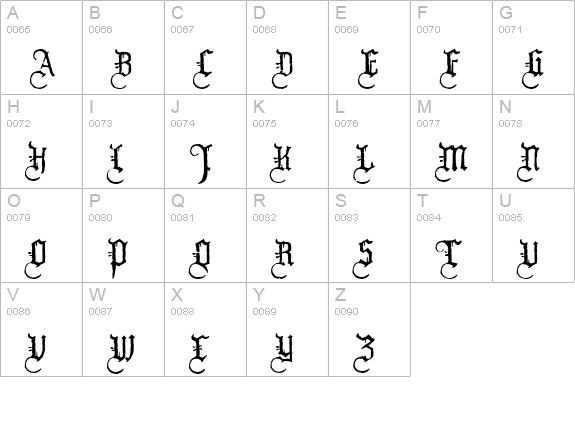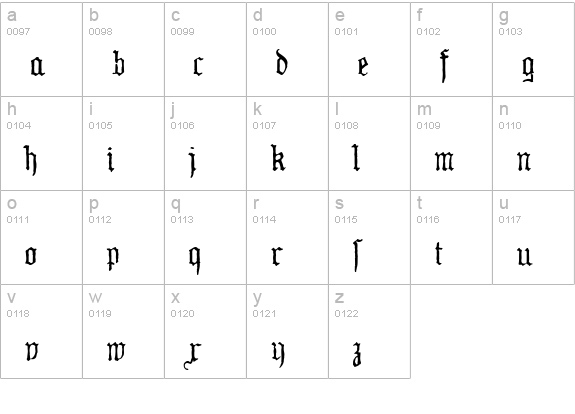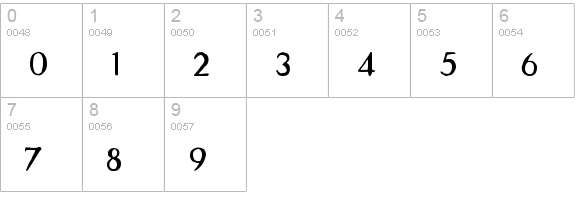
WW2Blackletter HPLHS Font Details
Introducing WW2Blackletter HPLHS font, a captivating typeface that brings the essence of World War II to life with its bold and striking design. This unique font pays homage to the iconic blackletter style, commonly used during the war era, and carries a sense of historical nostalgia. WW2Blackletter HPLHS font is meticulously crafted to capture the intricate details and ornate flourishes reminiscent of traditional calligraphy. Its sharp and angular letterforms exude a sense of strength and power, reflecting the spirit of resilience and determination that defined the wartime period. This font is not only visually appealing but also incredibly versatile, making it suitable for a wide range of design projects. Whether you're creating vintage-inspired posters, historical documentaries, or even personal projects that aim to capture the essence of the past, WW2Blackletter HPLHS font will effortlessly elevate your work to new heights. As a bonus, this remarkable font is available for free download at FontsMarket.com. This means that designers and enthusiasts alike can easily access and utilize the WW2Blackletter HPLHS font in their projects, without any financial constraints. Now, you can bring the authentic feel of World War II typography to your designs, all at no cost. Don't miss out on the opportunity to enhance your designs with the timeless beauty of WW2Blackletter HPLHS font. Download it for free today at FontsMarket.com and let your creativity take flight as you immerse yourself in the rich history and aesthetic of the World War II era.